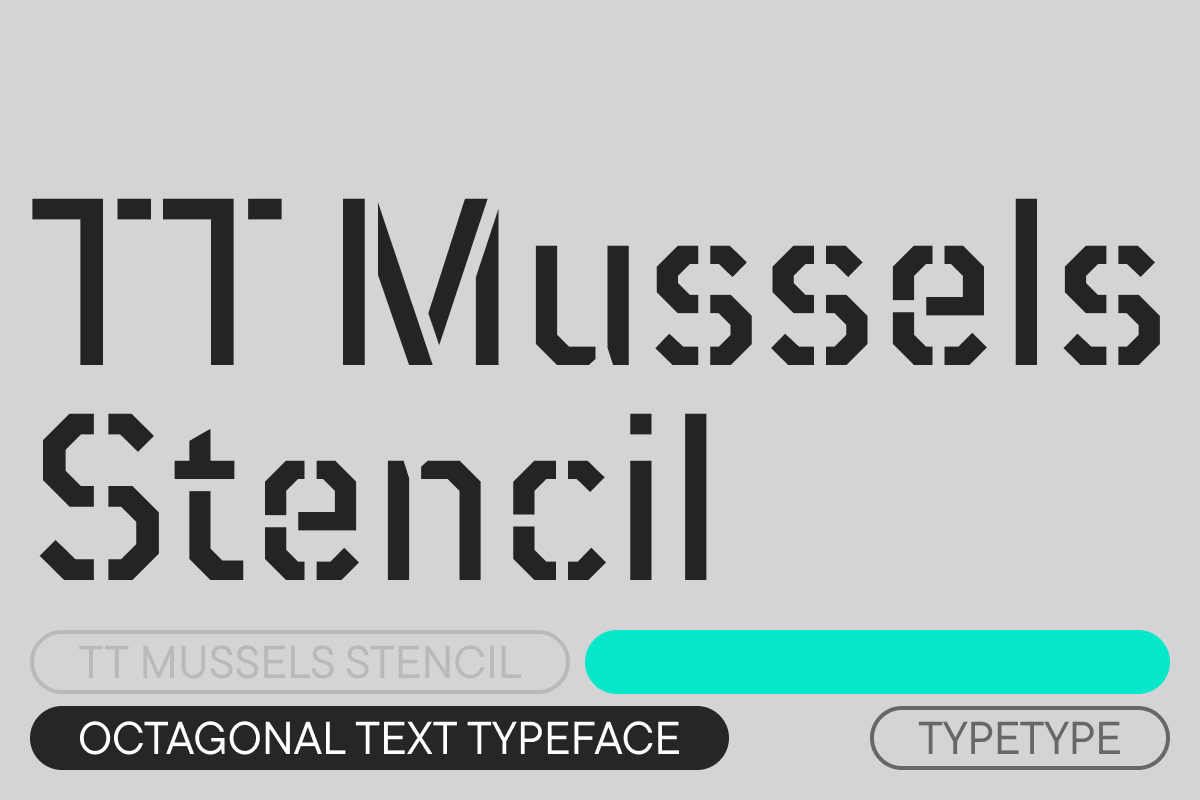
TT Mussels Stencil Thin
When designing TT Mussels, we paid great attention to the possibility of imposing large arrays of text, and we can responsibly state that TT Mussels is a rare type of technological text fonts. Dynamic contrast is widely implemented in TT Mussels which is most noticeable in the Black styles. You can also find other signs of respect for traditional text fonts in the TT Mussels design, such as the trace of pen movement which is historically typical for antiquas.